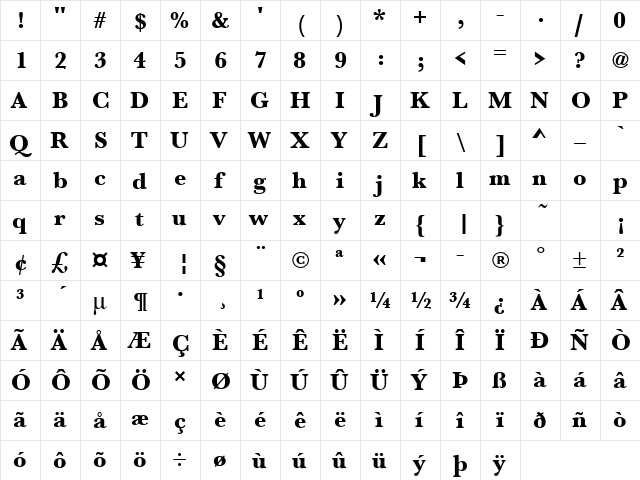
URWBaskerTExtBol Regular Font Preview
URWBaskerTExtBol Regular
URWBaskerTExtBol Regular Font Details
Design Context for URWBaskerTExtBol Typeface
URWBaskerTExtBol is a composed and adaptable typeface that performs quietly and consistently across a wide range of design contexts.